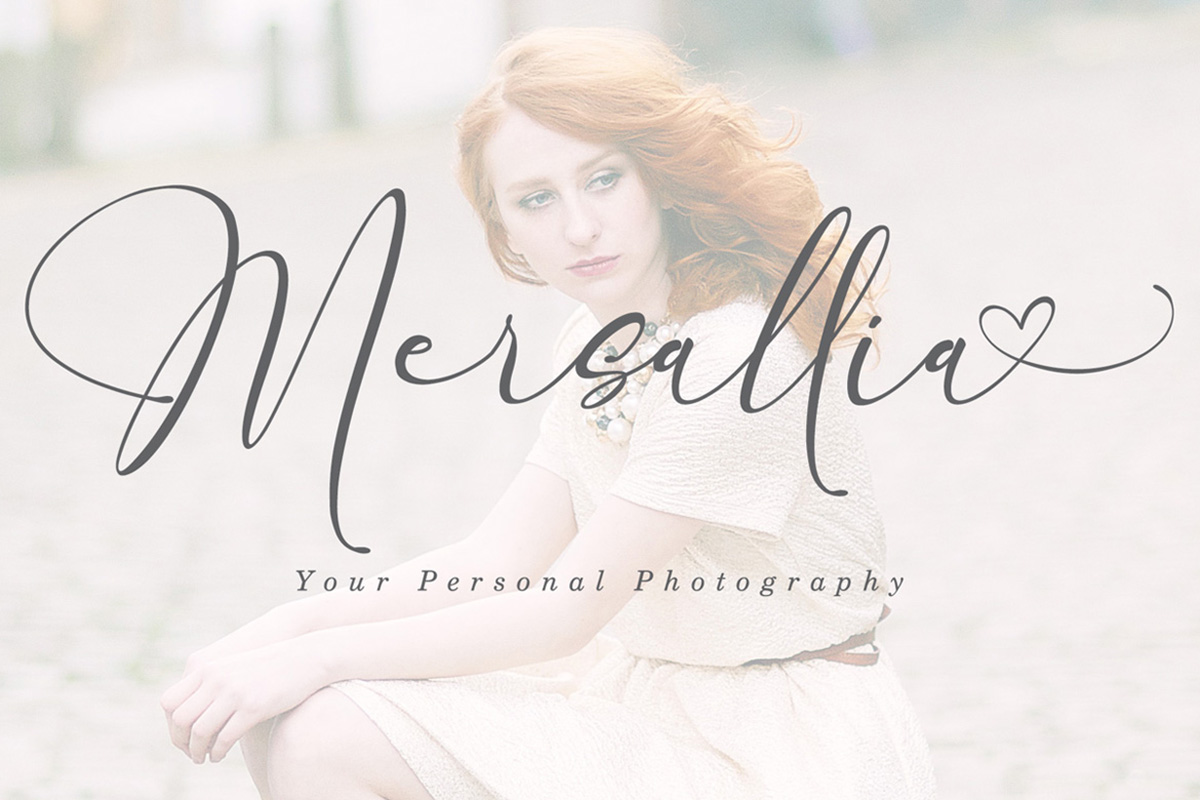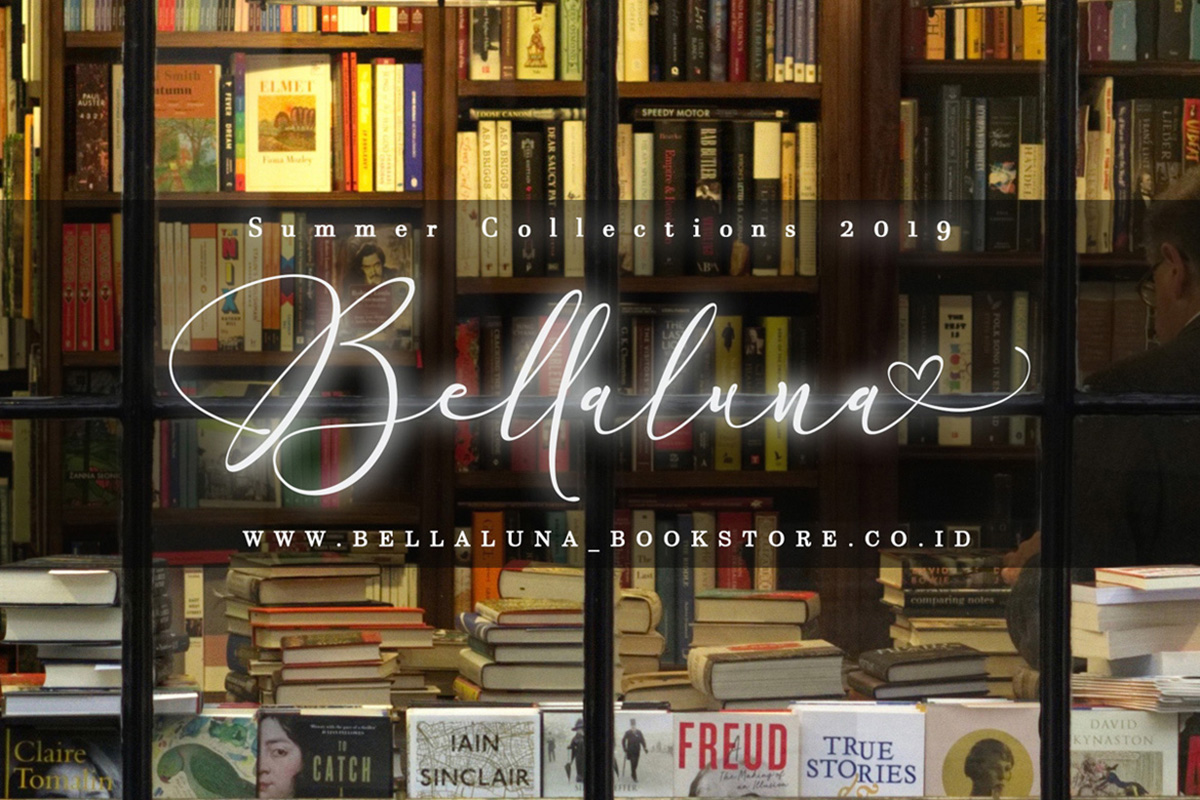
England Reality Free Font
England Reality Free Font is a stylish calligraphy font. This stunning script features varying baseline and smooth lines. This free typeface was designed by the talented Alde Saputro. If you like it don’t forget to check out the full version.